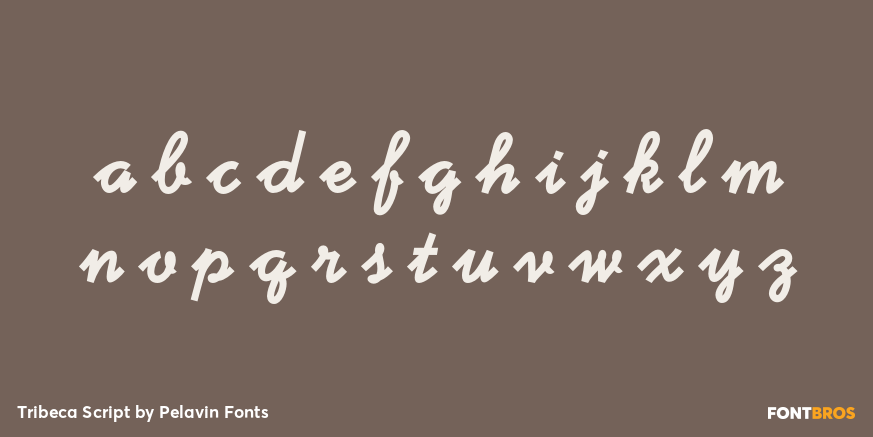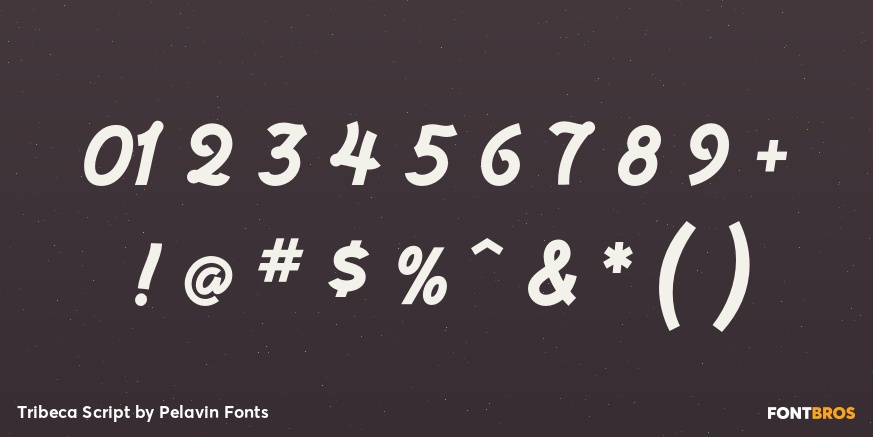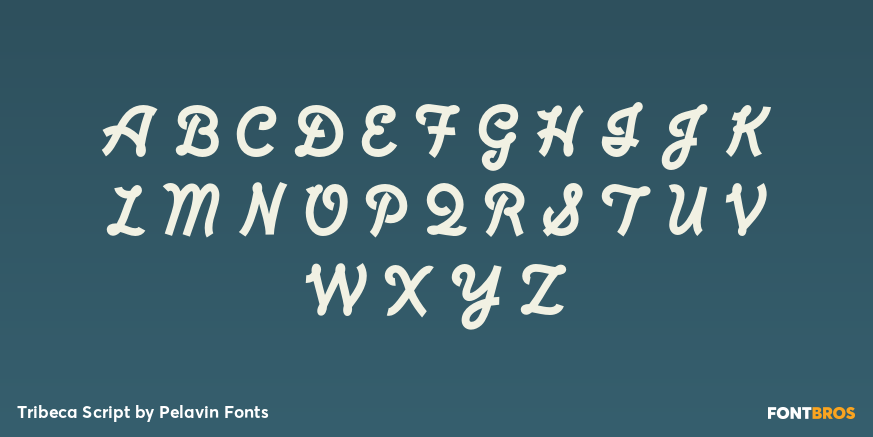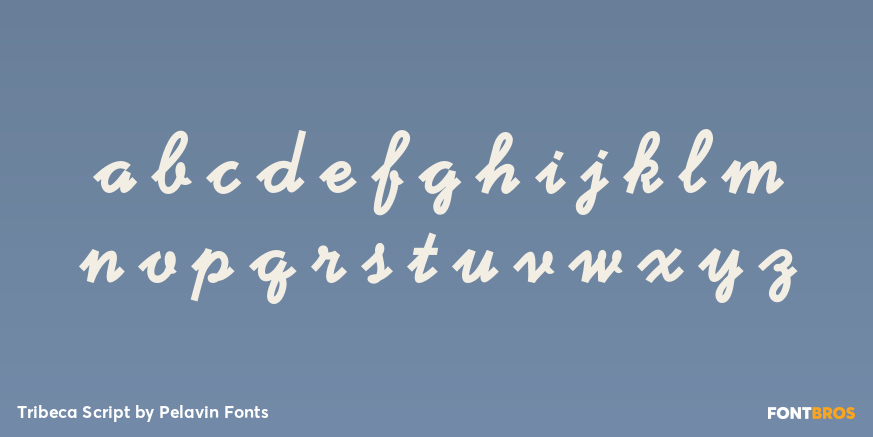
Tribeca Script
Font Family by Pelavin Fonts
In a script font, every character should join neatly with every other, the spacing must appear uniform, the connections mustn't look awkward and individual characters must work as both initial and final letters. While this can be accomplished by using dozens of alternate glyphs and OpenType feature coding, there is still something worthy and eloquent about doing it with the simplest character set possible.
Tribeca Script is a casual, mono-weight script first drawn as the headline for a Taste of Tribeca poster and later finessed into a font with no pretense of looking hand-rendered.